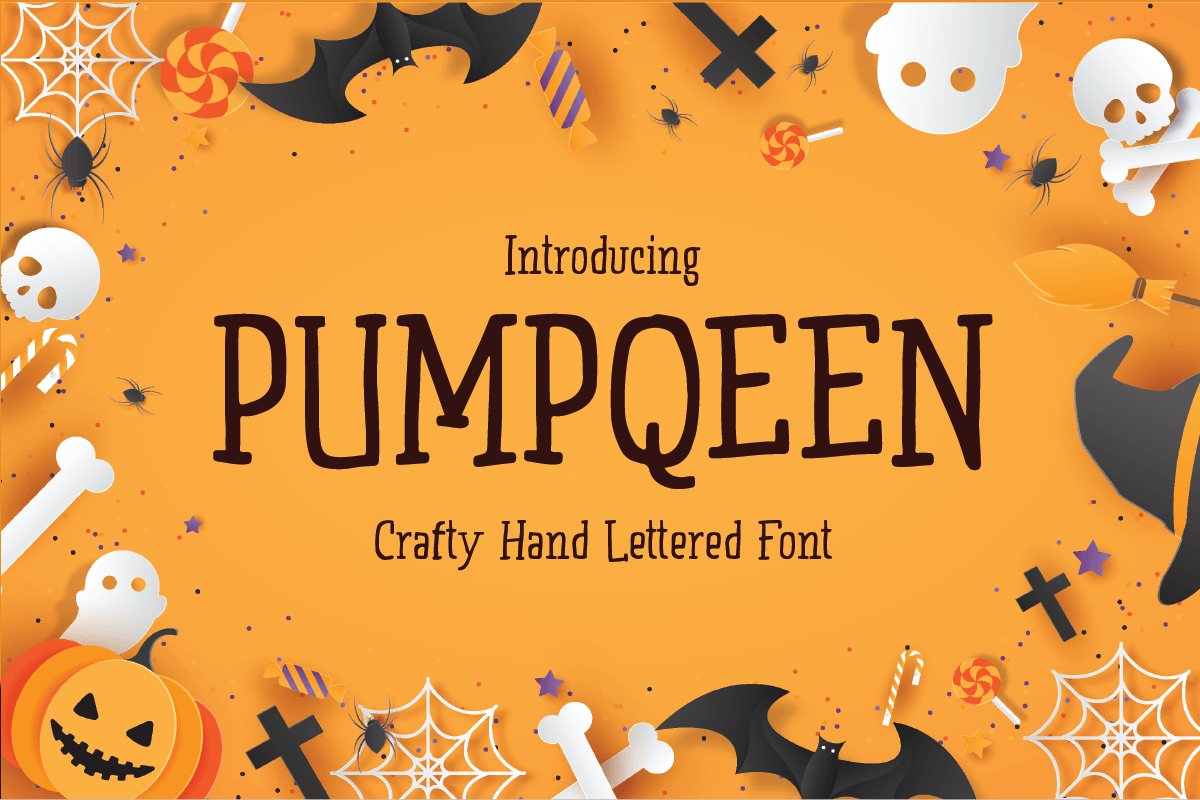
PUMPQEEN
-Halloween Hand lettered Quirky Font
Pumpqeen is a Halloween Hand-lettered Quirky Font best for Halloween Event, Kids Poster and Child Game Font. This font specially crafted for your design projects such as quirky poster, unique flyer, t-shirt designs, product packaging, merchandise, pillow print and so many more with easy to use but unique results are so quirky.